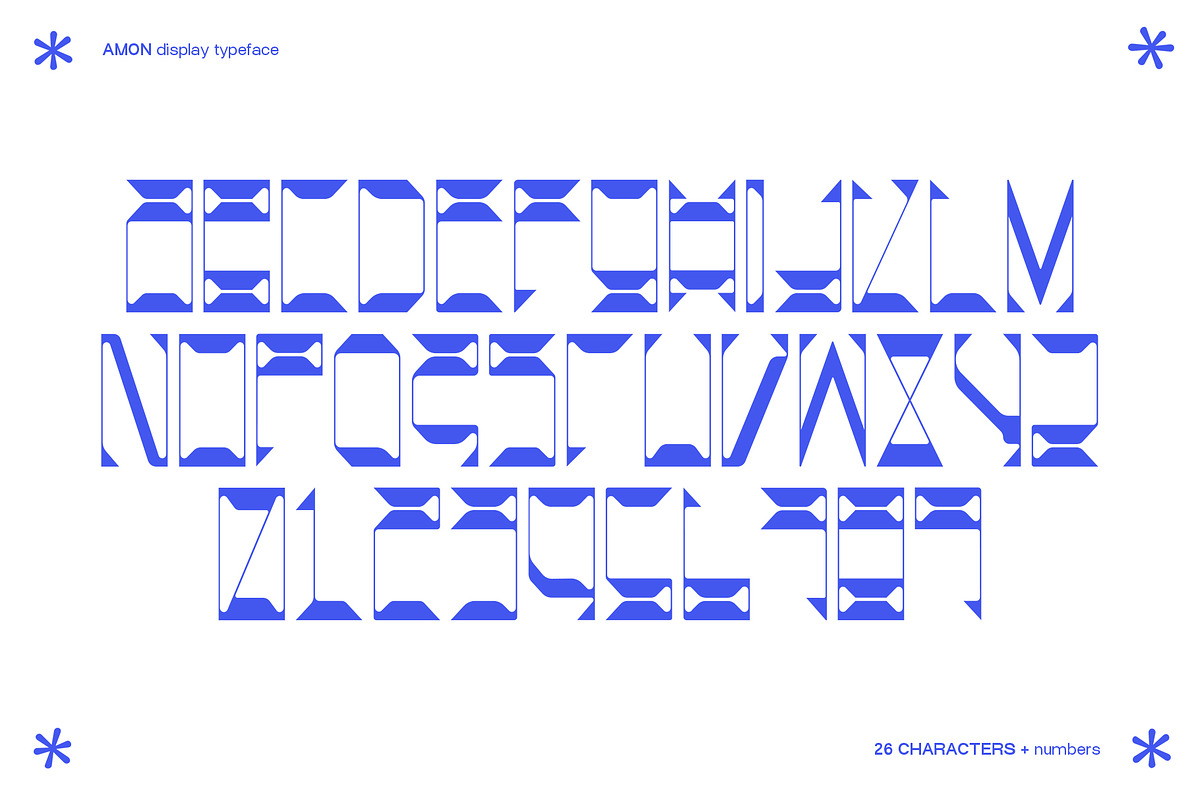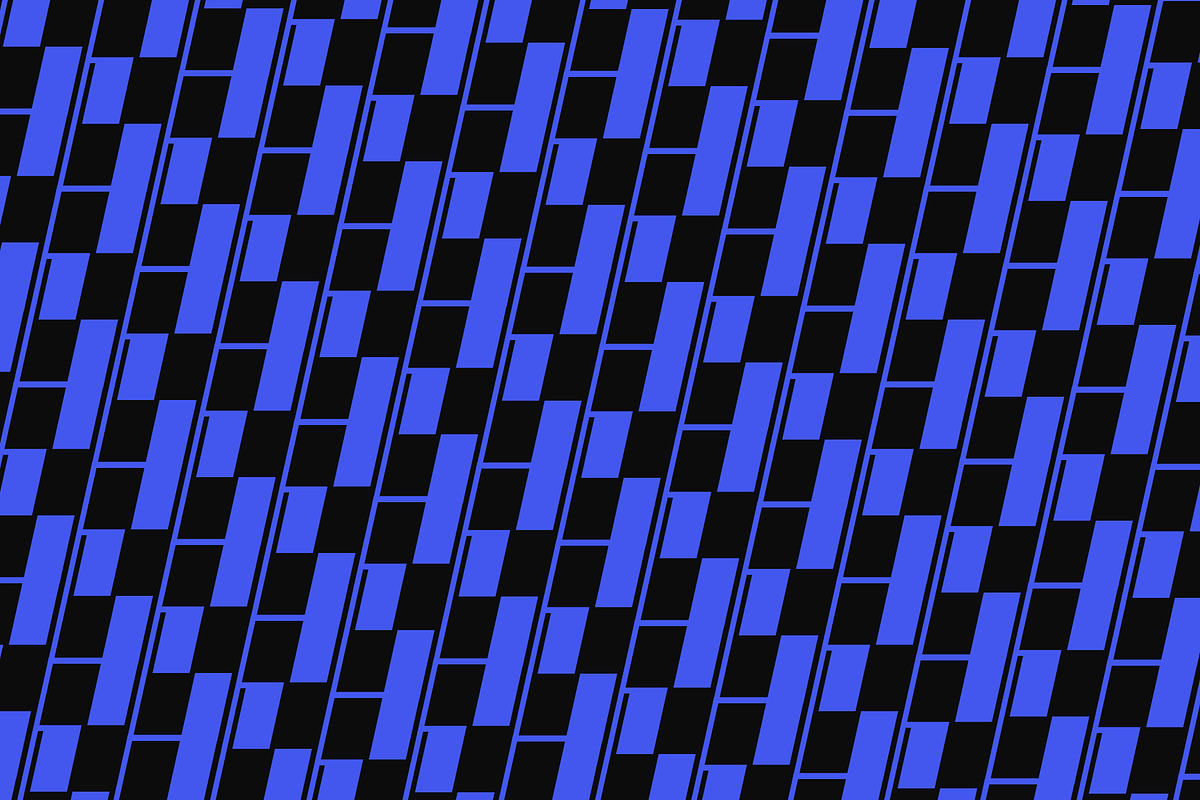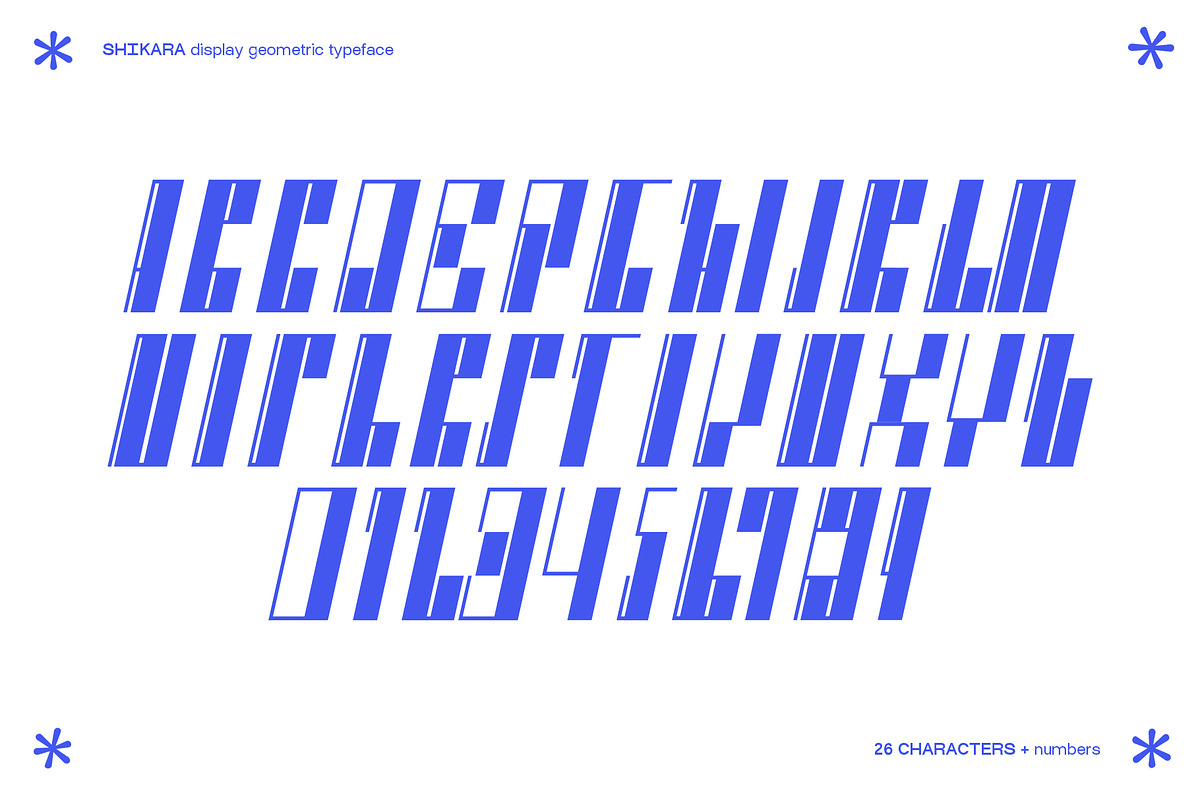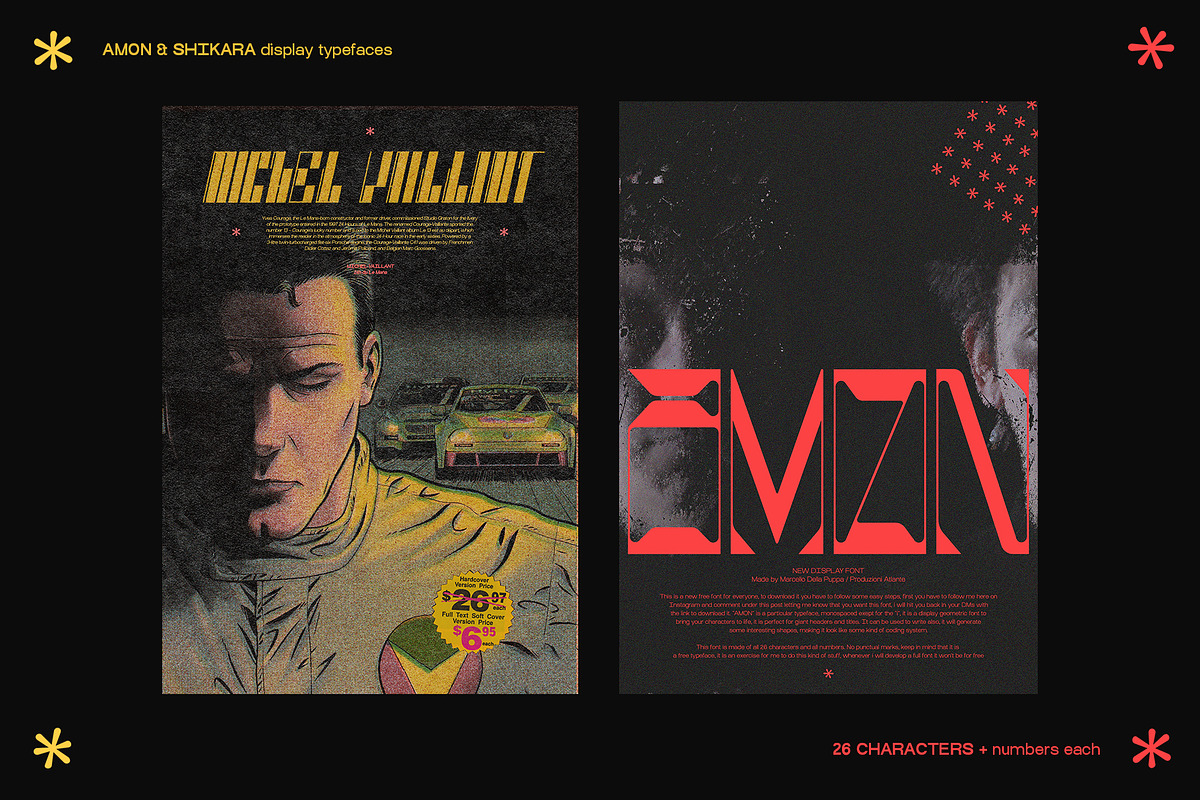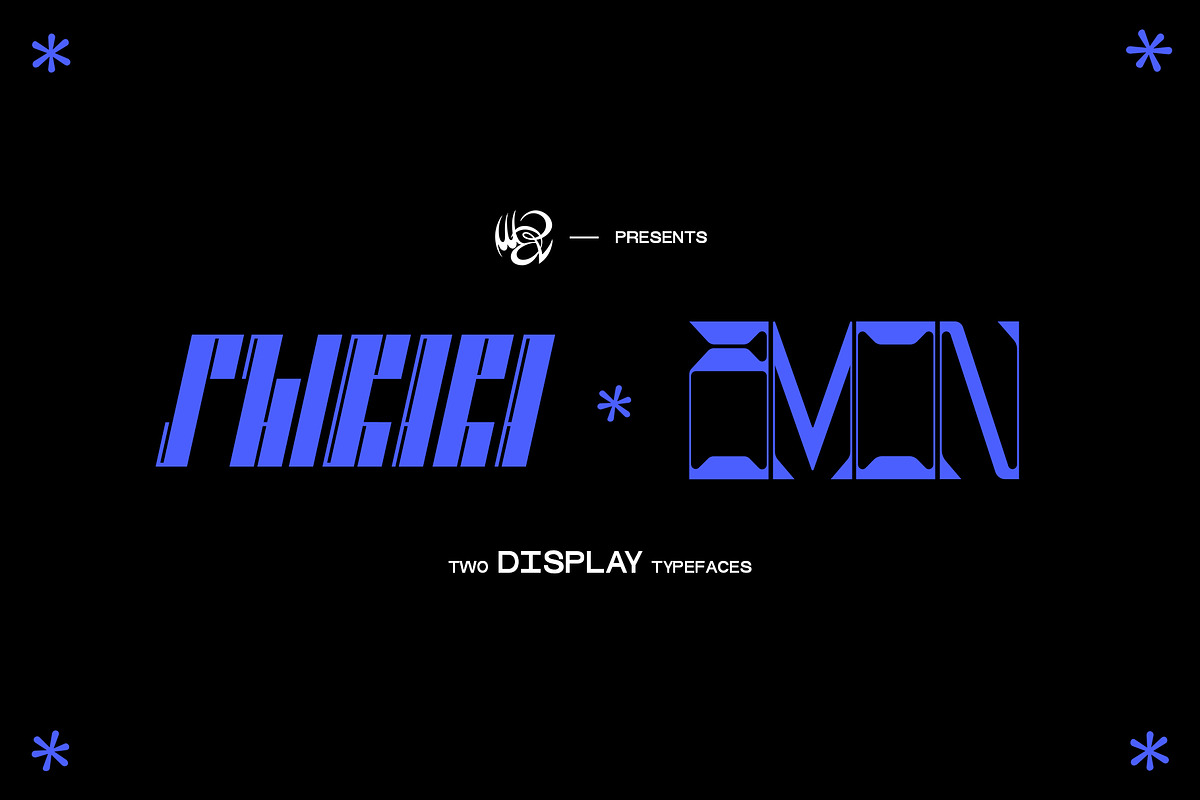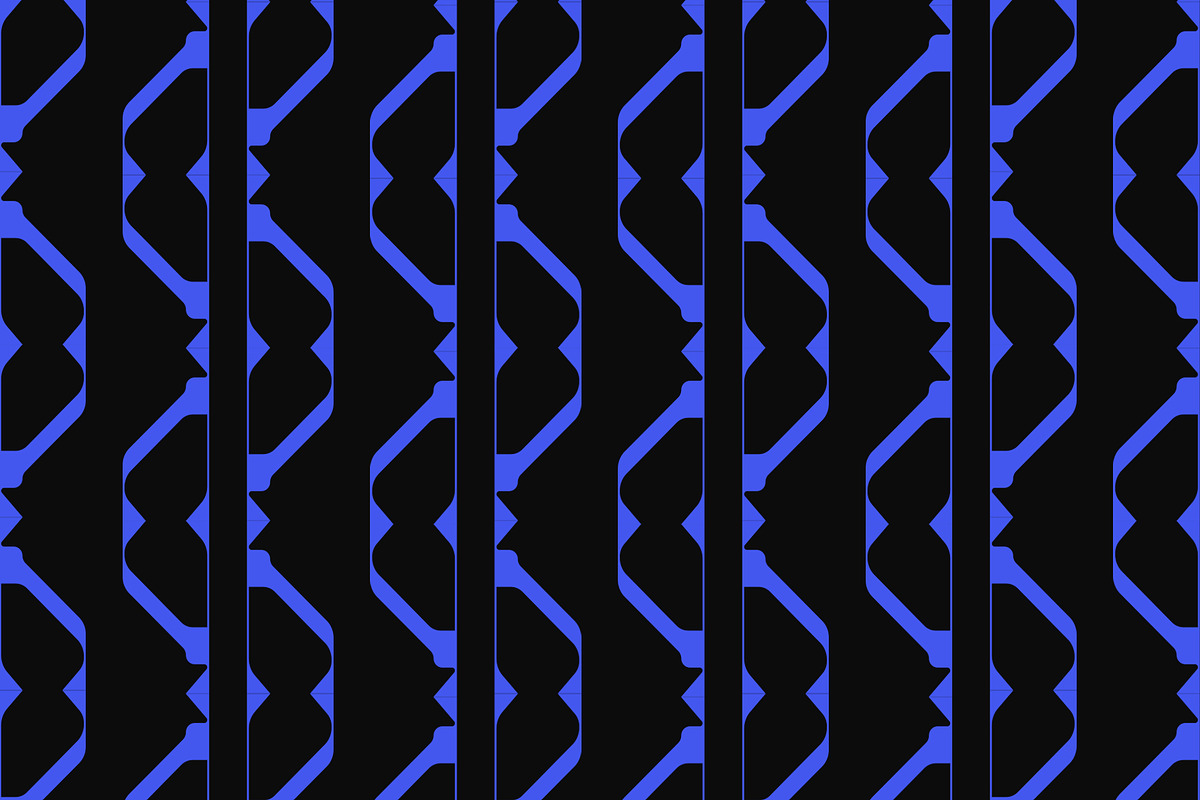
AMON & SHIKARA Display Typefaces
AMON and SHIKARA are two original display typefaces, both full of all 26 characters and numbers. AMON is a very interesting one, with strong and thin lines, with geometric angles and shapes and at the same time it has nice curves. AMON is perfect to create big headlines for you posters, merch, album covers, i personally love it when it's written in short words but it's up to you :)
SHIKARA is a great font inspired by the album "Nothing is true, everything is possible" by Enter Shikari, it is a diagonal geometric font that can be used to create any kind of text, i feel like it's perfect when it is used in the sport environment. Play with line tracking and try to obtain the best result for you!